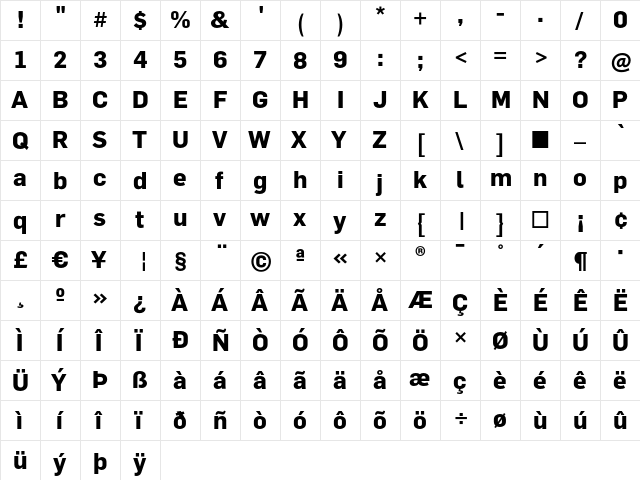
Flama Bold
Design Context for Flama Typeface
Flama offers clean, dependable letterforms without strong stylistic allegiance, making it a practical choice for designers who need flexibility. Its bold stroke weight gives it real presence on the page.
Pro Tip: Pair Flama with a font of contrasting weight or personality to build a more expressive typographic hierarchy.